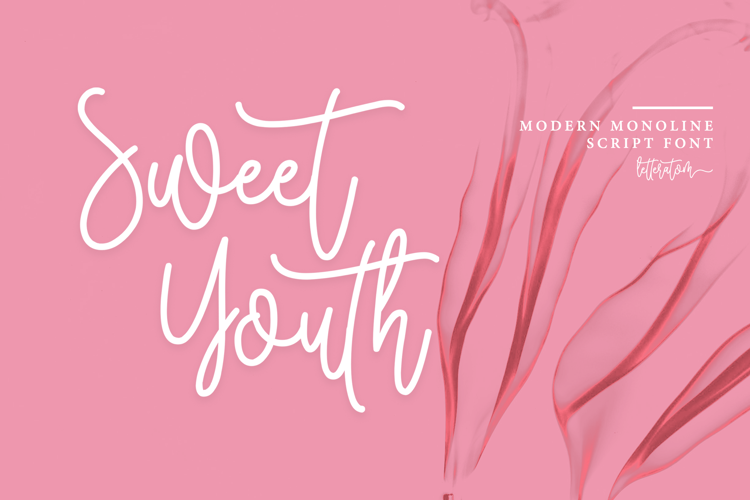
Sweet Youth Font
About Sweet Youth Font
Sweet Youth Font is a Cursive font and was created on . Since then, it has been downloaded 2,270 times and added to 51 collections. 0 people have liked Sweet Youth Font and given it a thumbs up.
Sweet Youth is a charming and authentic script with a simple feel. Use it to turn any design project into a stunning piece of art.